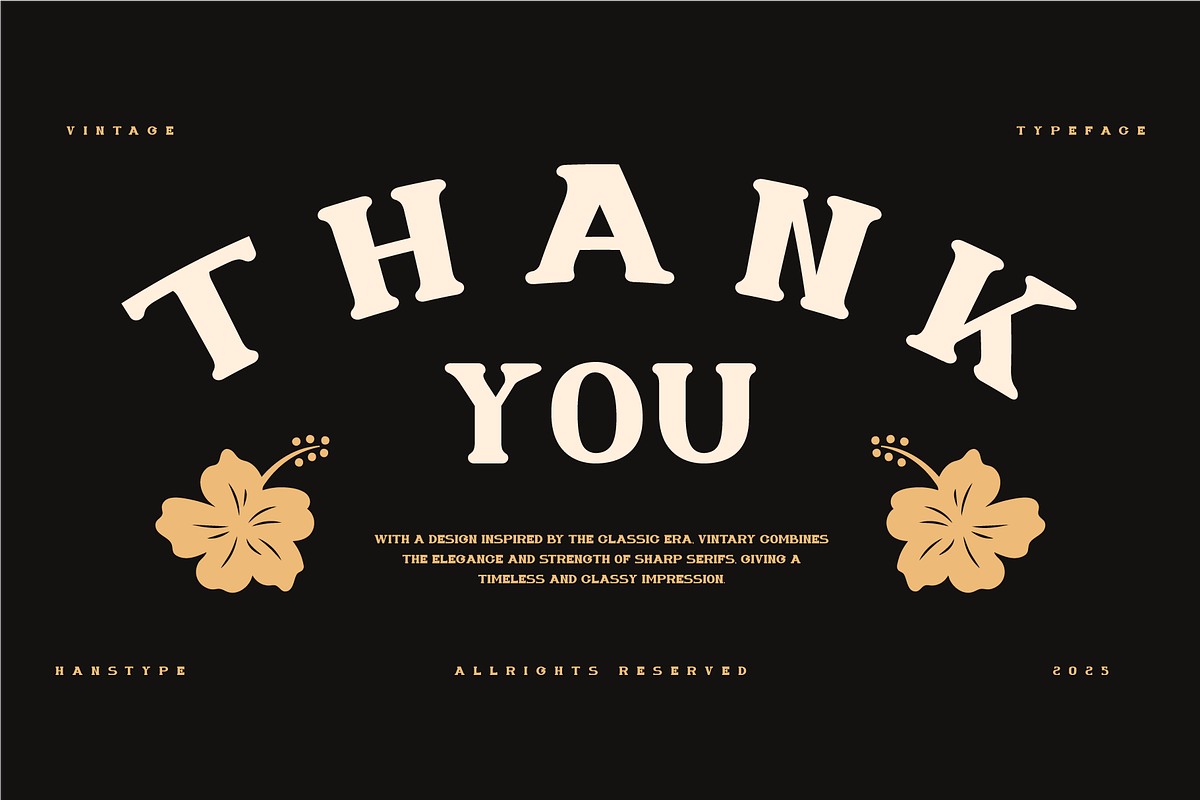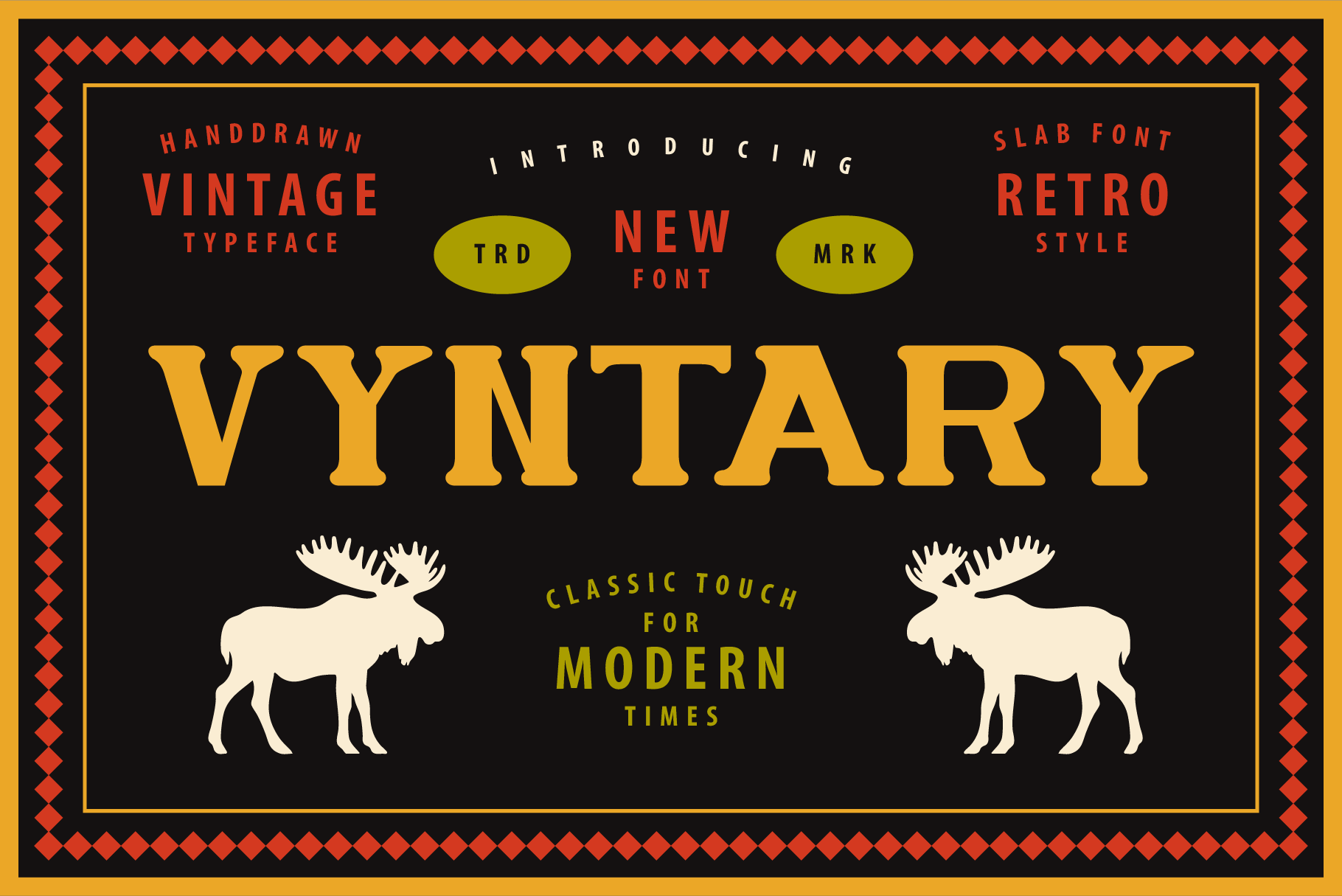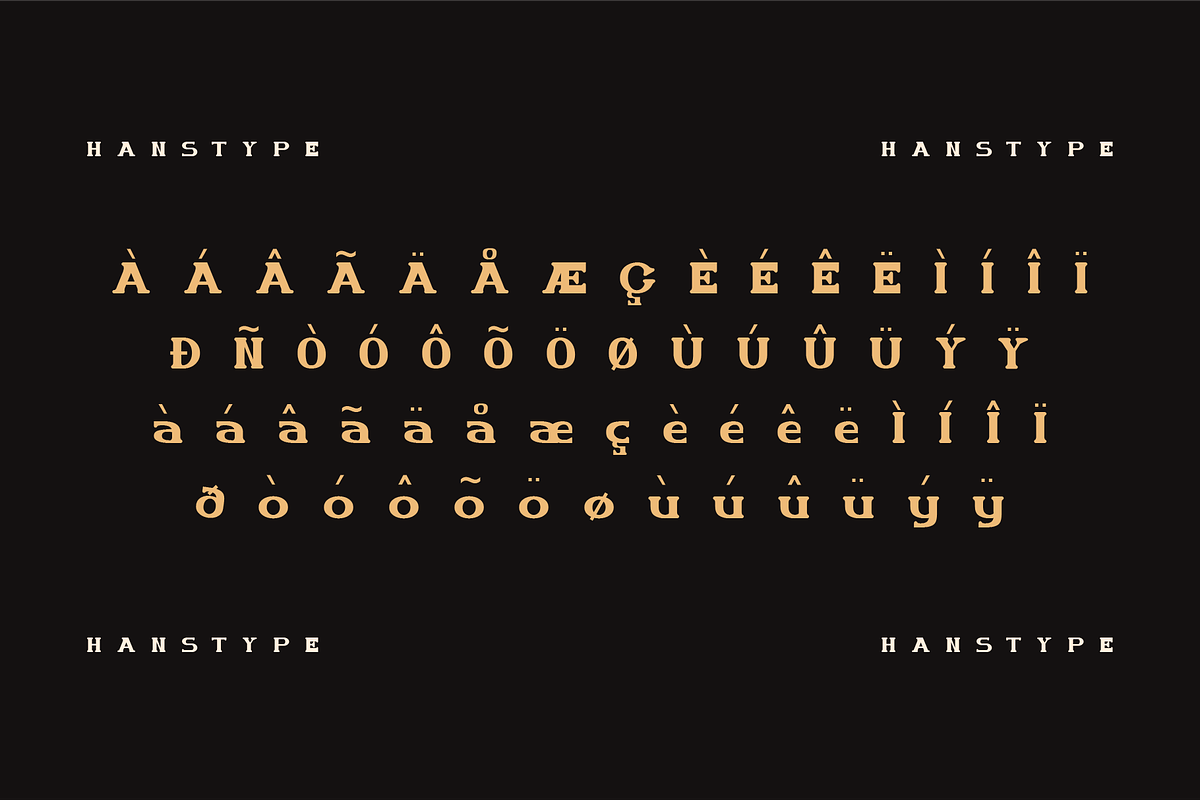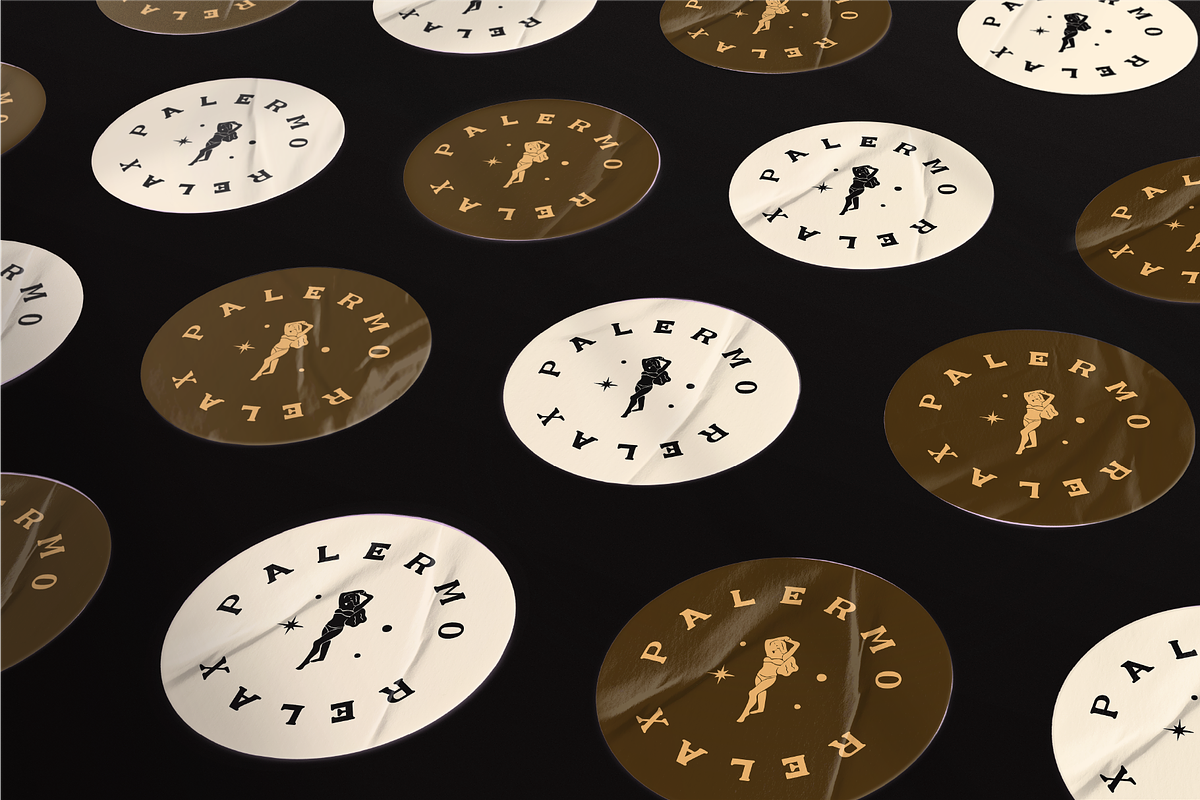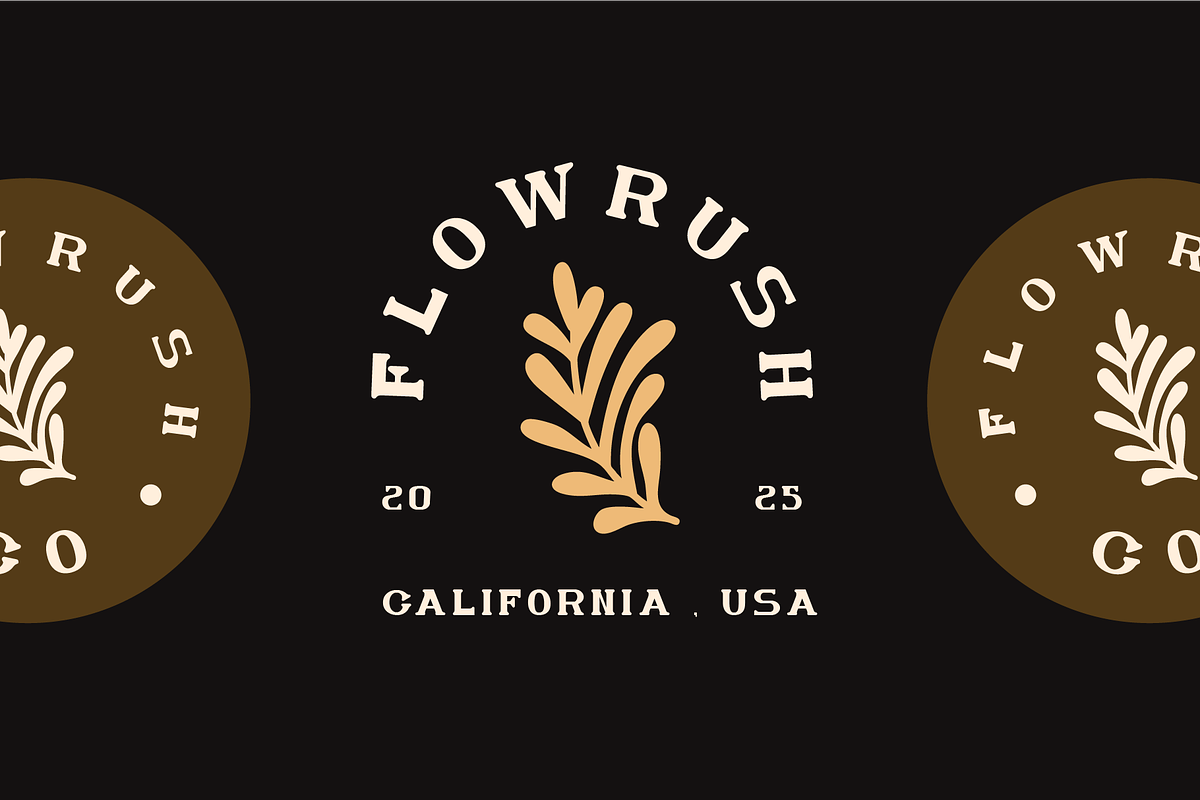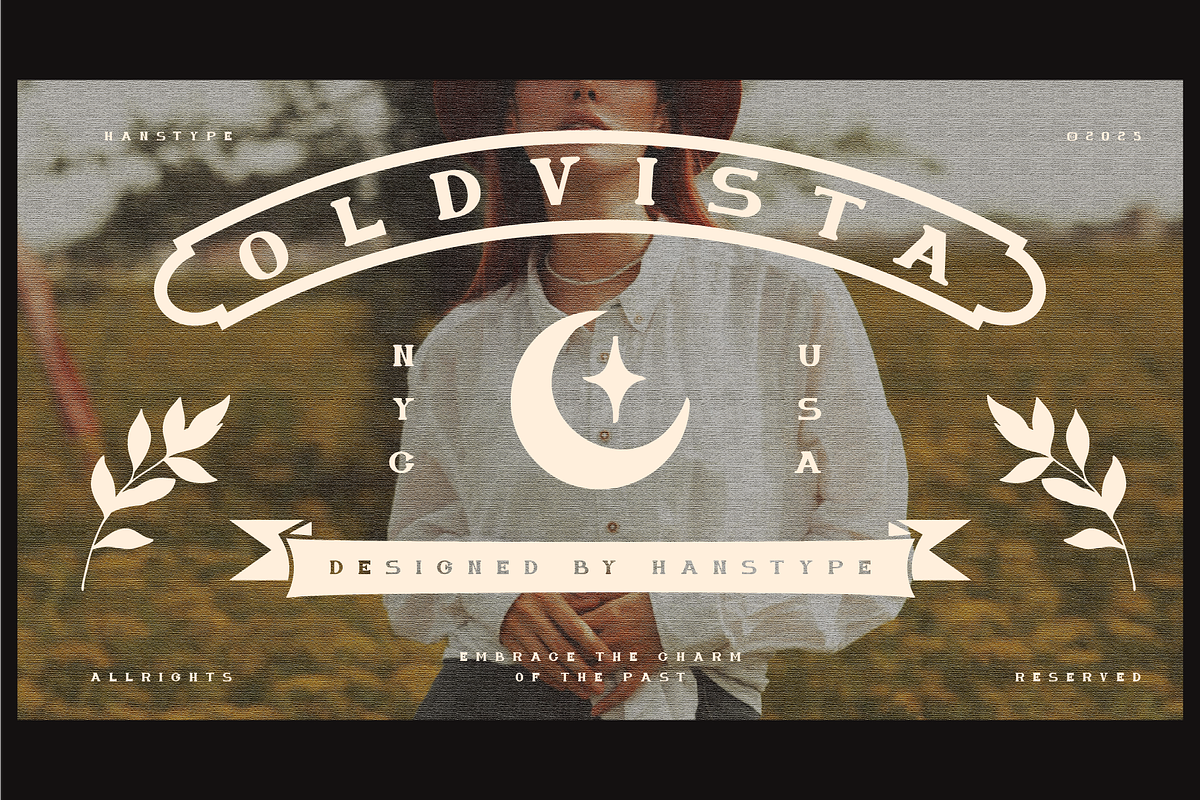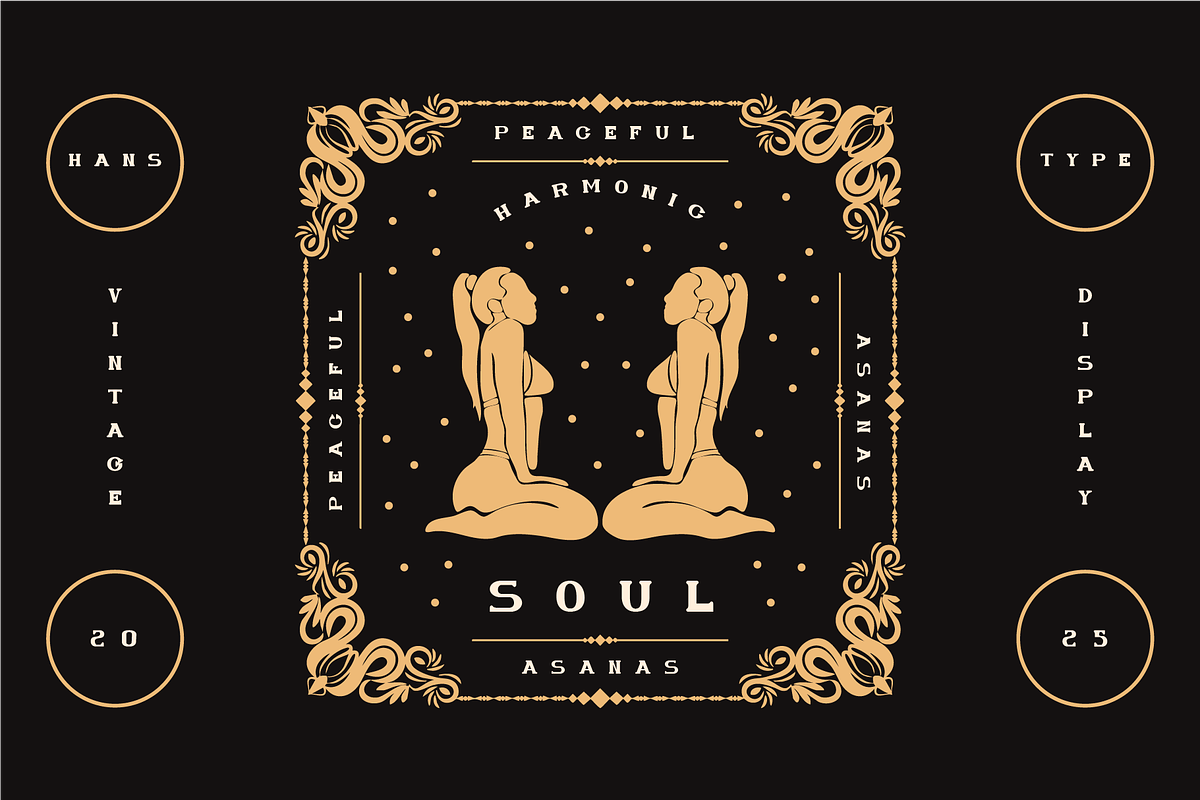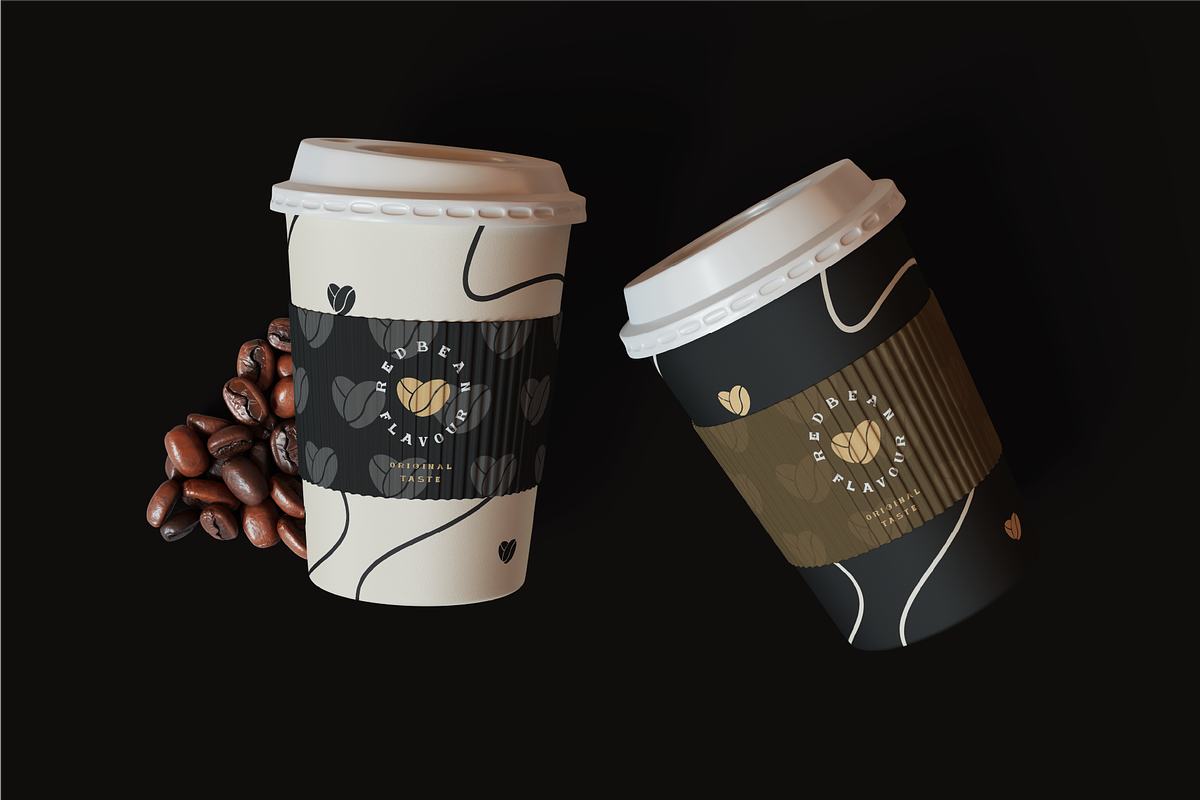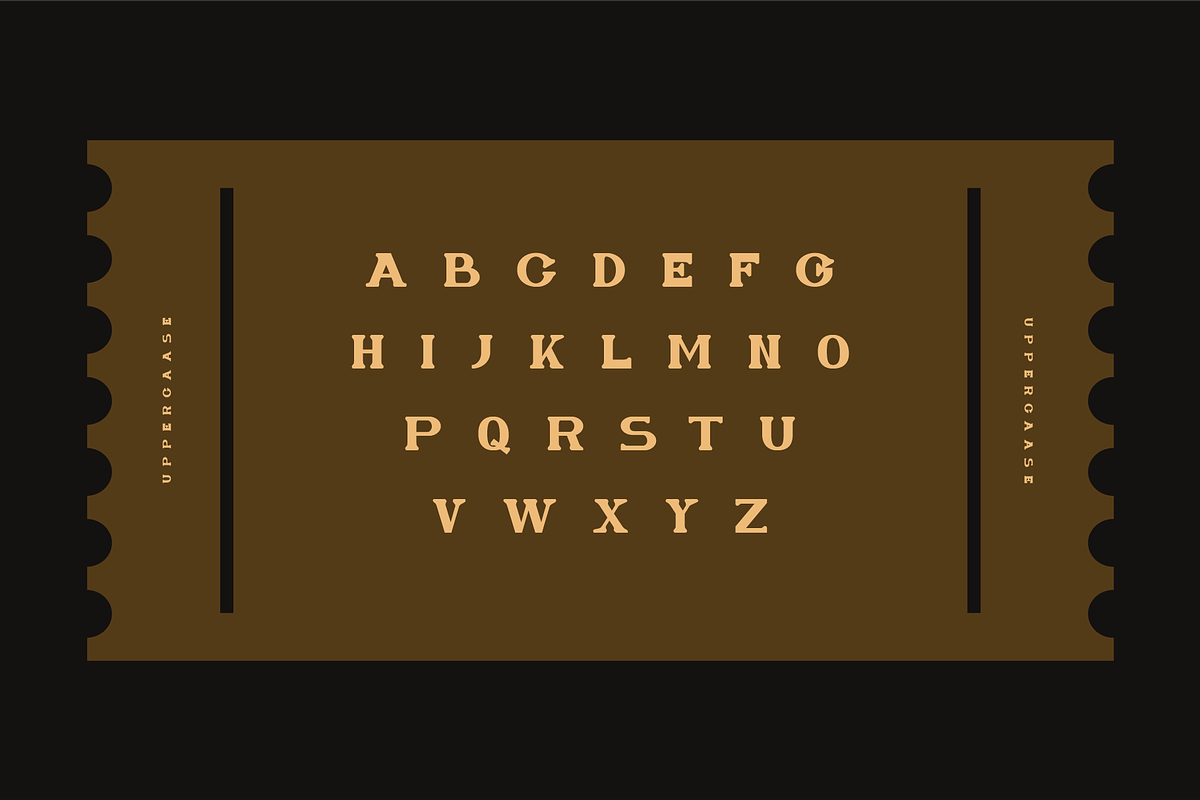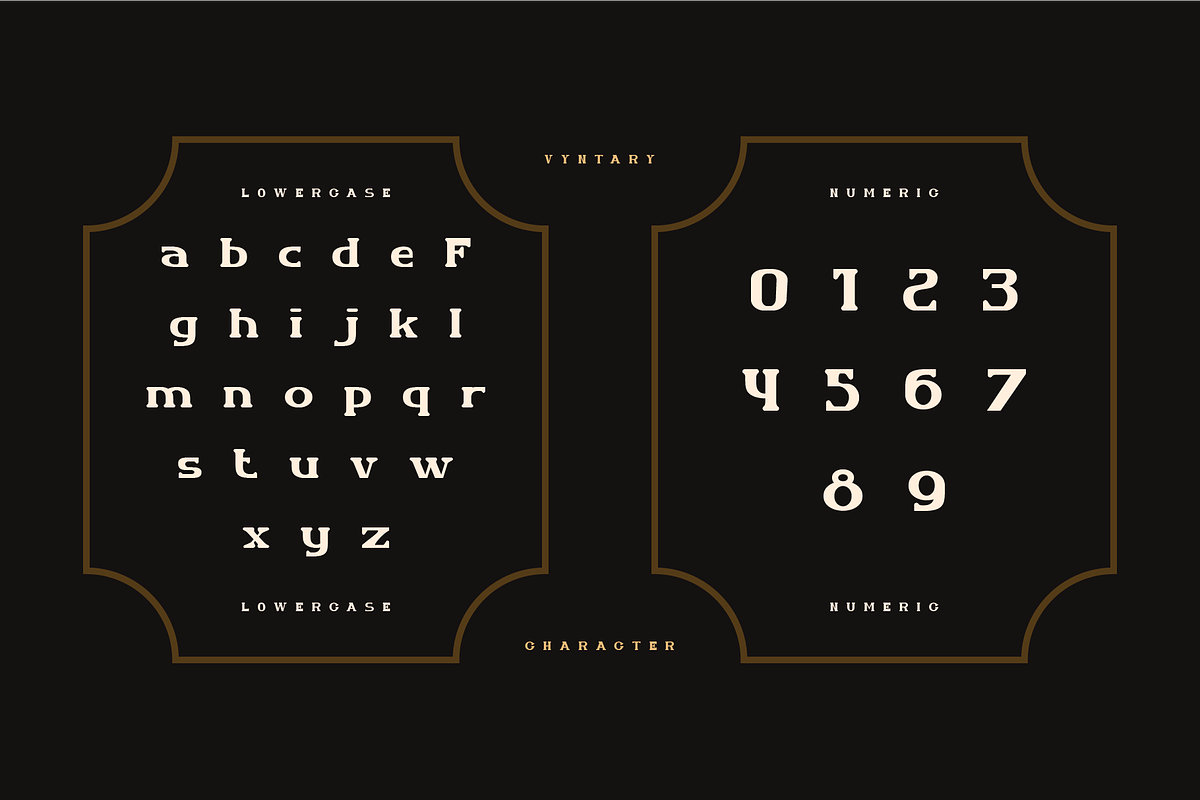
Vyntary - Vintage Slab Font
Vyntary Font is a stylish, retro-inspired typeface designed to evoke the nostalgic charm of vintage typography with a modern twist. With its clean lines and bold character, this font brings a sense of fun and timelessness to any design project. Perfect for headlines, logos, posters, and branding, Vyntary Font captures the essence of the past while remaining versatile and on-trend. Whether you're working on a modern project with a nod to the past or designing for retro-themed branding, Vyntary adds a distinct flair that stands out.